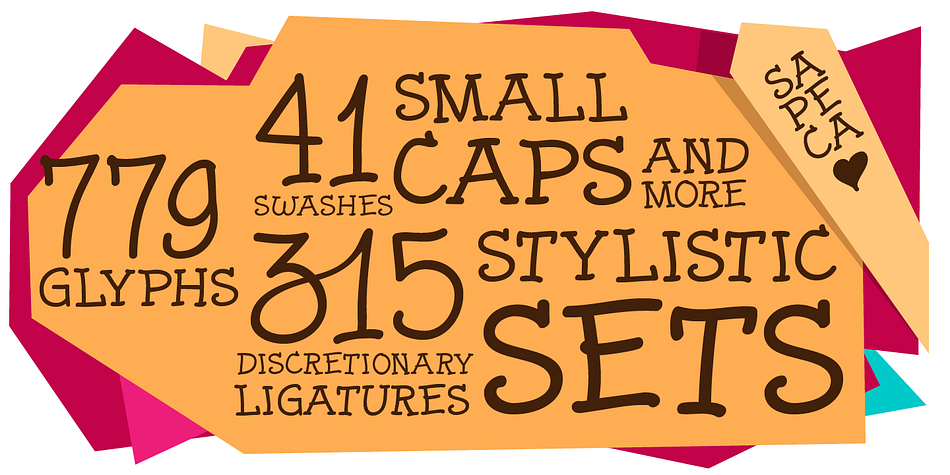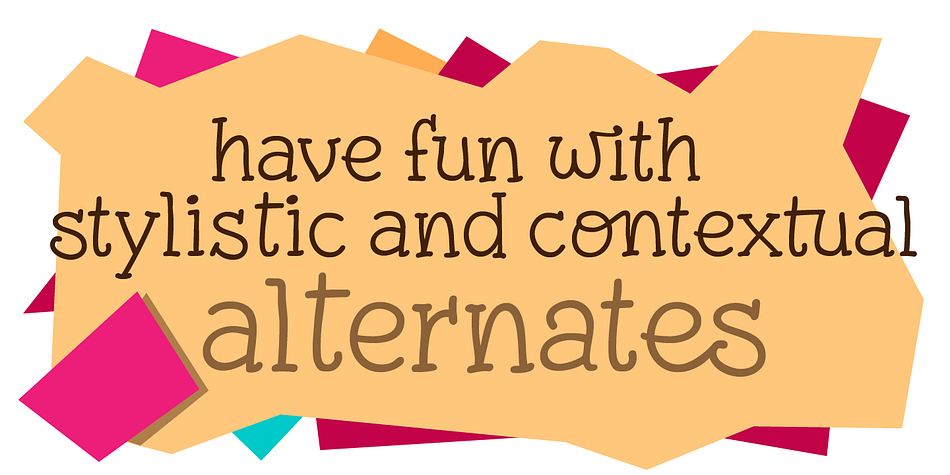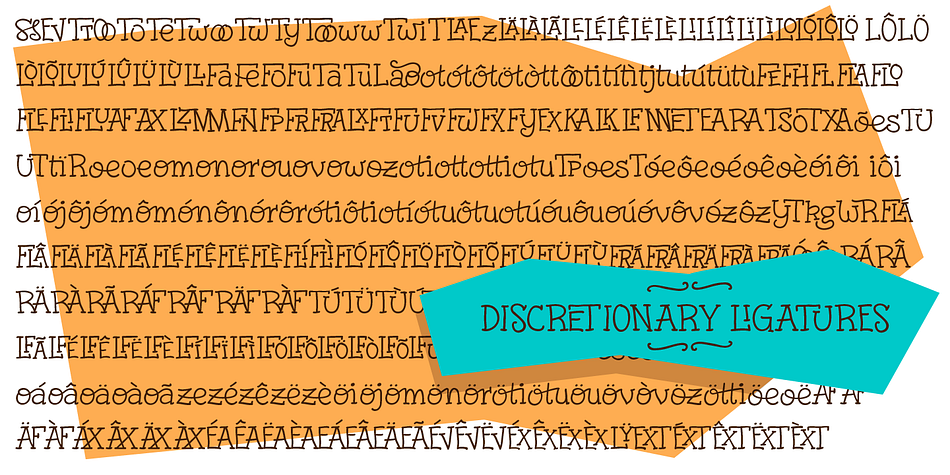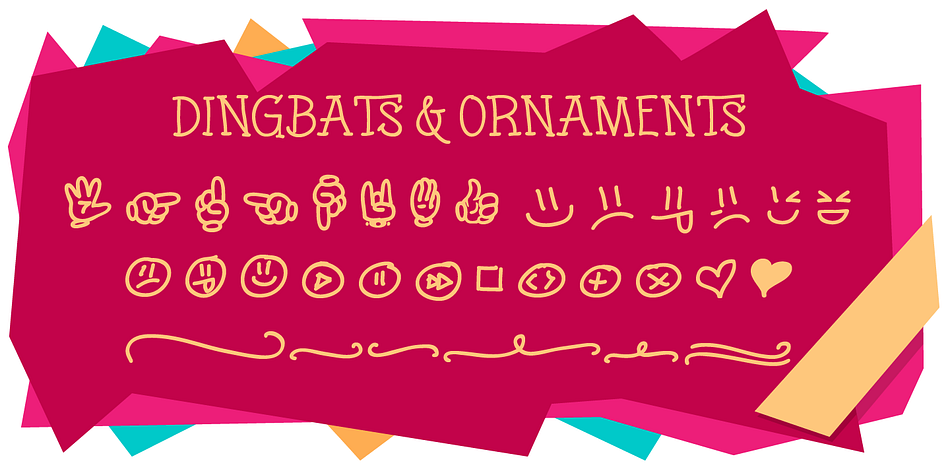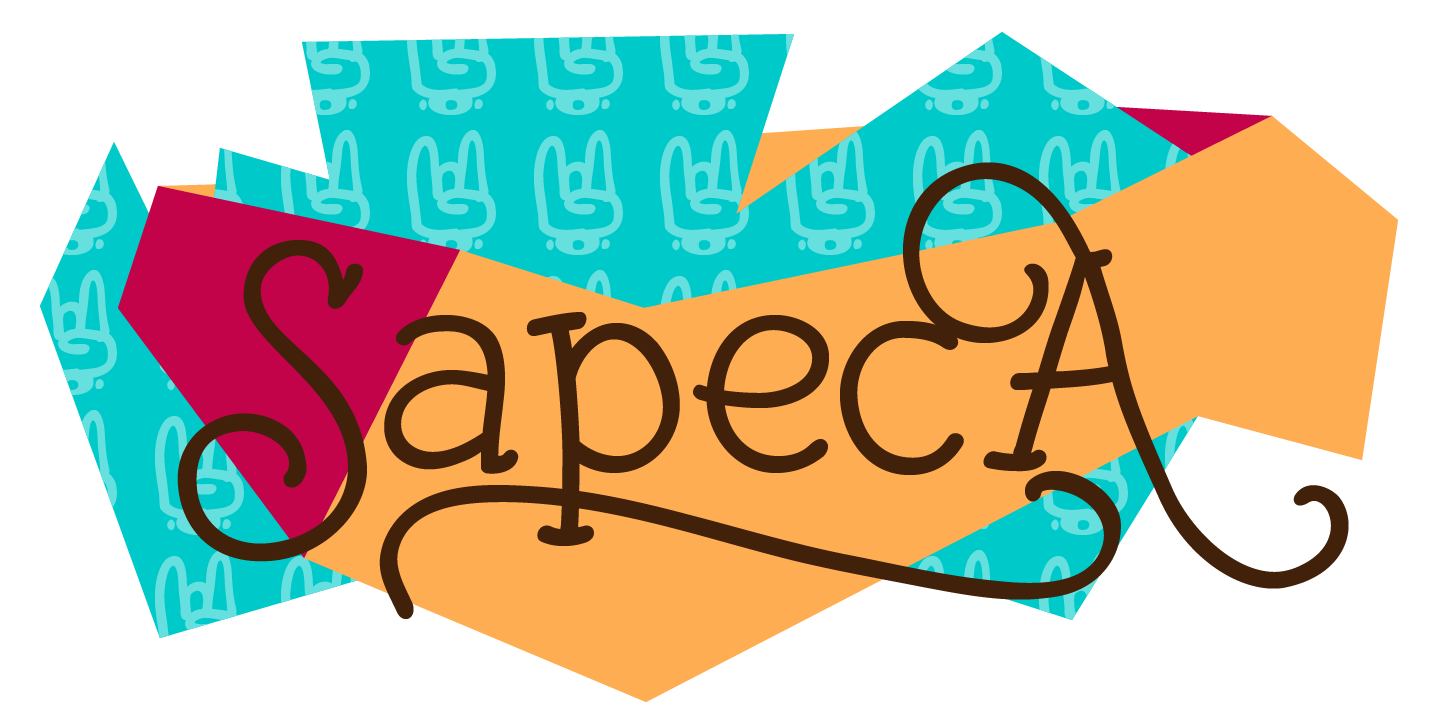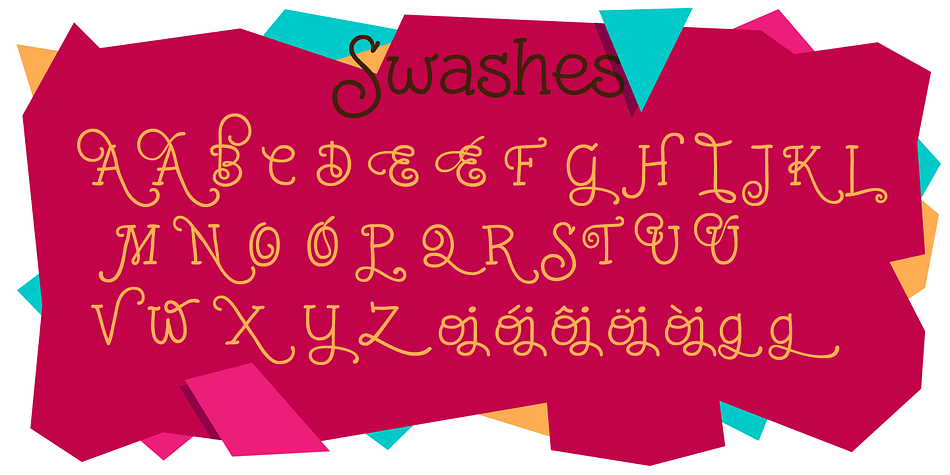
Sapeca is a comic and hand drawn font published by Just In Type.
This project started from the idea to create a fun & informal typeface that would be cool for designers and for the general public. So, Just in Type designed a font with several OpenType features to create different letterings for different occasions, always in a cute way, sometimes even fancy.